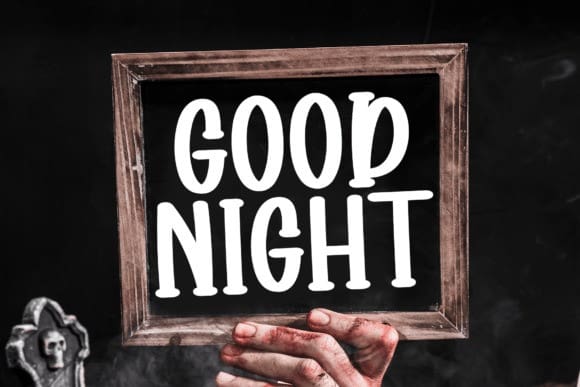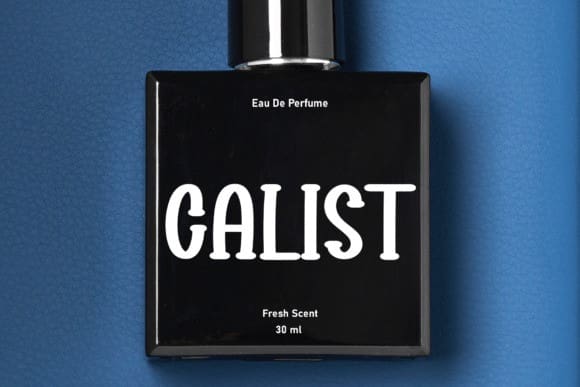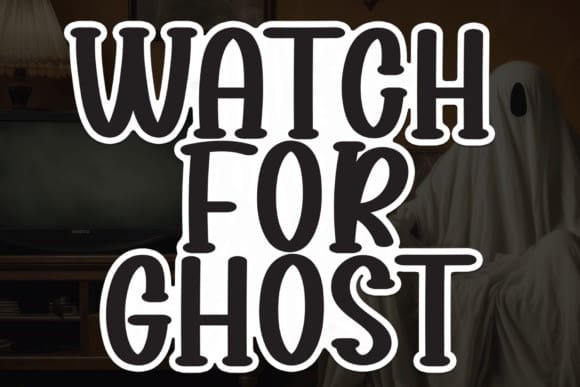
Watch For Ghosts Font
Watch For Ghosts Font is a sweet and friendly handwritten font. Its natural and unique style makes it incredibly fitting to a large pool of designs. The only limit is your imagination!